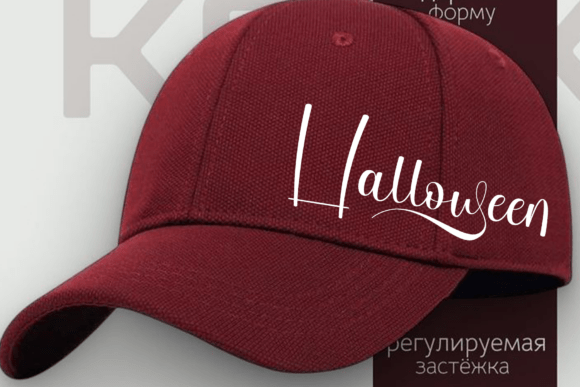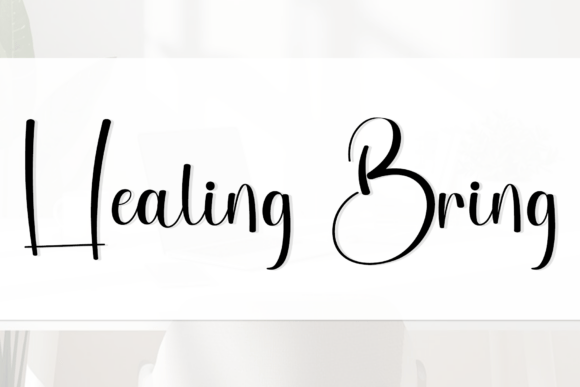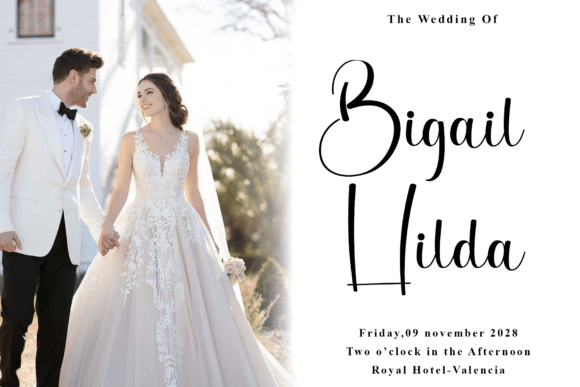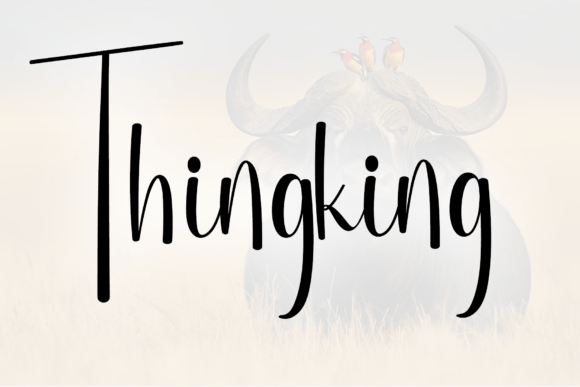
Introducing Buffalow Font: The Timeless Handwritten Font for Stunning Designs
Are you a designer or crafter looking for a font that can add a touch of elegance and sophistication to your designs? Look no further than Buffalow Font, a lovely and timeless handwritten font that is perfect for creating eye-catching logos, branding, and quotes. With its unique and beautiful touch, Buffalow Font is sure to make your design come alive!
The Characteristics of Buffalow Font
Buffalow Font is a handwritten font that boasts a range of characteristics that make it perfect for designers and crafters. Every letter has a unique and beautiful touch, which gives the font a personal and human feel. The font is highly legible, making it perfect for use in a variety of design projects, from logos and branding to quotes and posters.
The Benefits of Using Buffalow Font
So why choose Buffalow Font for your design projects? Here are just a few benefits of using this stunning font:
- Elegance and Sophistication: Buffalow Font adds a touch of elegance and sophistication to any design project. Its timeless and classic look makes it perfect for designers who want to create stunning and professional-looking designs.
- Unique and Beautiful Touch: Every letter in Buffalow Font has a unique and beautiful touch, which gives the font a personal and human feel. This makes it perfect for designers who want to add a personal touch to their designs.
- Highly Legible: Buffalow Font is highly legible, making it perfect for use in a variety of design projects, from logos and branding to quotes and posters.
- Versatile: Buffalow Font is a versatile font that can be used in a range of design projects, from digital designs to print designs.
How to Use Buffalow Font in Your Designs
Using Buffalow Font in your designs is easy. Here are a few tips to get you started:
- Logos and Branding: Use Buffalow Font to create stunning logos and branding materials that will help your clients stand out from the competition.
- Quotes and Posters: Use Buffalow Font to create eye-catching quotes and posters that will grab the attention of your audience.
- Digital Designs: Use Buffalow Font in your digital designs, such as social media graphics and website headers, to add a touch of elegance and sophistication.
- Print Designs: Use Buffalow Font in your print designs, such as brochures and flyers, to create stunning and professional-looking materials.
Why Designers and Crafters Love Buffalow Font
Designers and crafters love Buffalow Font for a range of reasons. Here are just a few:
- High-Quality: Buffalow Font is a high-quality font that is designed to produce stunning results.
- Unique and Creative: Buffalow Font is a unique and creative font that will help you to stand out from the competition.
In conclusion, Buffalow Font is a lovely and timeless handwritten font that is perfect for designers and crafters. With its unique and beautiful touch, Buffalow Font is sure to make your design come alive! Whether you’re creating logos and branding materials, quotes and posters, or digital and print designs, Buffalow Font is the perfect choice. So why wait? Download Buffalow Font today and start creating stunning designs that will leave a lasting impression!